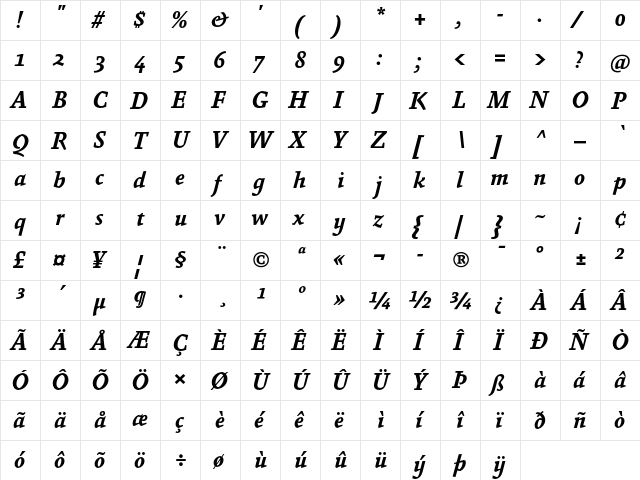
Absara Bold Italic
Design Context for Absara Bold Typeface
Absara Bold takes a measured approach to typography — its balanced proportions and neutral character make it a reliable workhorse for both digital and print work. The dynamic lean of this cut emphasises speed and emphasis in any layout. The heavy weight commands attention and anchors typographic hierarchies.
Pro Tip: Use Absara Bold for emphasis, pull quotes, and subheadings where its slanted energy can add rhythm to the layout.